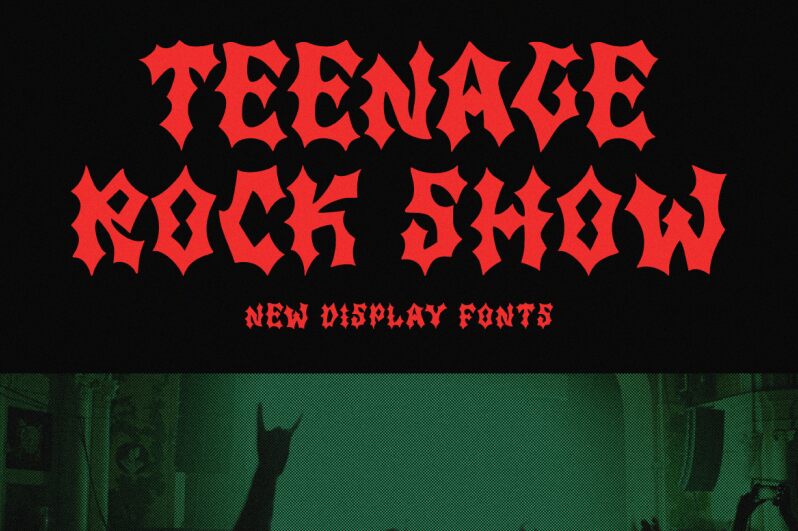
Teenage Rock Show font, by Teenage Foundry, is a free gothic font with an exaggerated appearance. A font with decorative elements, its energy and aggressive feel rest in its inspirations. Teenage Rock Show draws from modern Gothic art, adding an aura of mystery and darkness. It’s a dramatic and creative font that can be easily featured in your band advertisements. Its modern rock aesthetic and bold presence are what make Teenage Rock Show unique.
This font has a limited practical use, but its beauty lies in the visual impact it creates. Teenage Rock Show combines all the emotions and feelings that stare through you. Use it in music album covers, concert tickets, movie posters, magazine covers, merchandise, fashion brands, and advertisements, band business card designs, apparel designs, branding and packaging, book covers, or quotes.